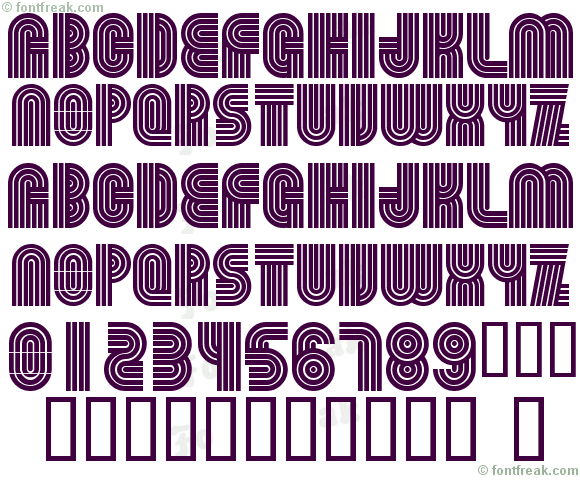
Beamie
About Beamie
The Beamie font by Etherbrian is a striking display typeface that showcases a unique blend of modern and retro aesthetics. As a generated font, it features a distinctive design that combines bold, rounded characters with playful curves, making it an ideal choice for eye-catching projects. The stroke weight is consistent, providing a solid appearance while maintaining a sense of whimsy. The contrast in the letterforms is minimal, which contributes to its clean look, but the decorative elements—such as the rounded accents—add a layer of creativity that enhances its overall character.
Beamie is particularly well-suited for a variety of applications. Its playful nature makes it perfect for wedding invitations, where it can evoke a sense of joy and celebration. Additionally, it works wonderfully for movie posters, as the boldness of the font captures attention and conveys excitement. Restaurant menus can also benefit from Beamie's unique style, as it adds a touch of flair to the dining experience. Content creators will find that using Beamie in social media graphics helps their posts stand out, attracting more engagement.
What sets Beamie apart is its ability to merge playfulness with professionalism, making it versatile for both casual and formal designs. By choosing Beamie, you are not just selecting a font; you are embracing a design element that can elevate your projects and leave a lasting impression.